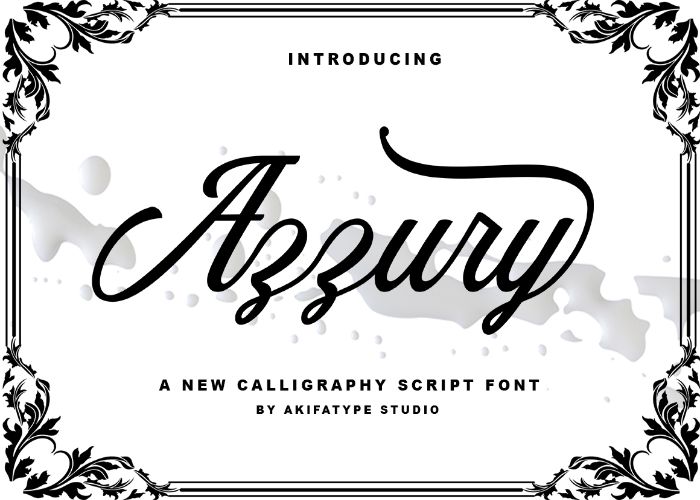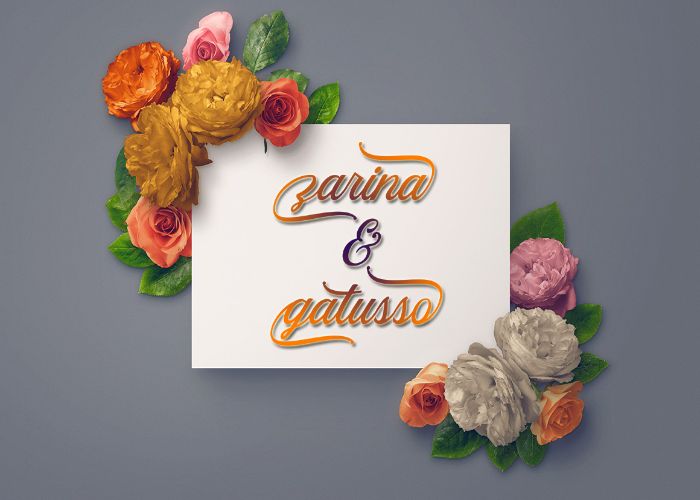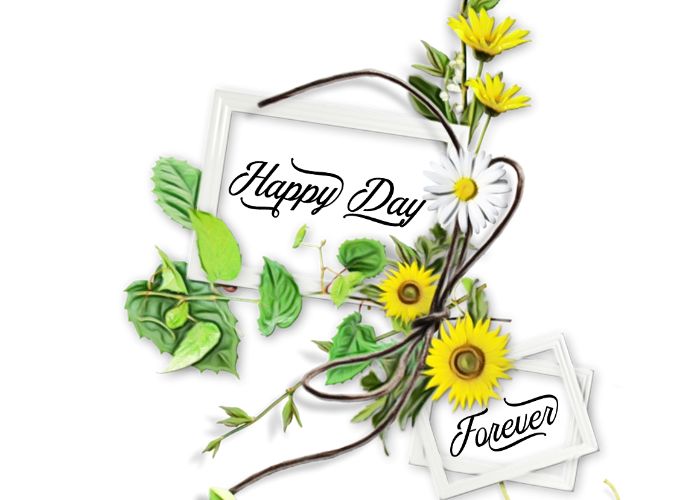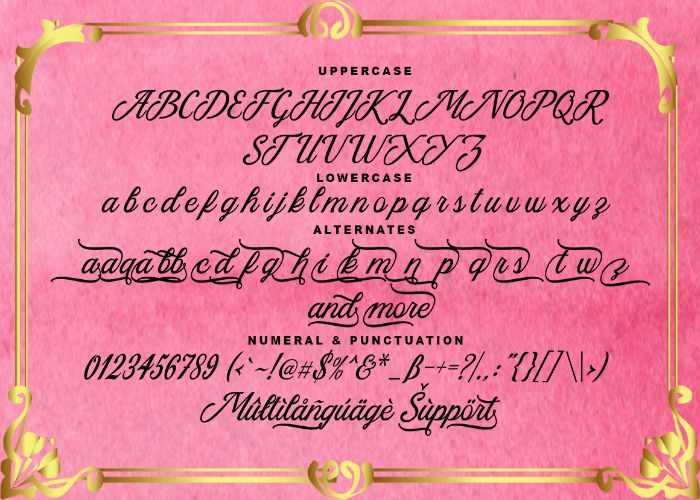
Azzury Script Font
Bold, classic and fun vintage… Presenting Pixelo’s free commercial font Azzury!
Azzury is highly legible script typeface with glyphs and opentype features with stylistic alternates. It can be used for various purposes such as posters, t-shirts, logos, news, badges etc.
Experience The Magic Of This Free Script Font!
So many ways you can use this font across the graphic spectrum, very flexible it’s definitely a must have font……
Nicely done font set. Will look good on cards and cert’s.
A nice, smooth flowing script. It made a nice addition to my collection.
Very clean calligraphy based font. It’s bold clean lines make it great for signage. as it very readable and stands out.
Love this font